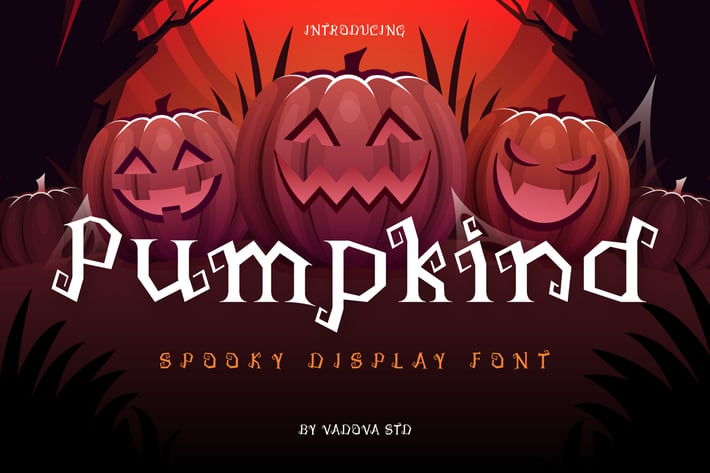
Pumpkind Font
Pumpkind is a whimsical yet spooky Halloween display font perfect for capturing eerie atmospheres with a playful edge. Blending dark fantasy with cartoonish horror, it’s ideal for haunted party invites, creepy movie titles, kids' Halloween books, spooky packaging, and trick-or-treat signage. The quirky letterforms, ghostly flair, and mysterious accents make Pumpkind a versatile pick for both child-friendly and darker seasonal projects that need a touch of the macabre.
Suitable For: halloween party, spooky invites, horror posters, ghost stories, scary decor, trick-or-treat signs, film titles, witchcraft themes, dark fantasy books, mystery design, haunted packaging, zombie flyers, creepy branding, kids’ halloween, monster design, eerie quotes, horror games, autumn events, costume ads, gothic fun.